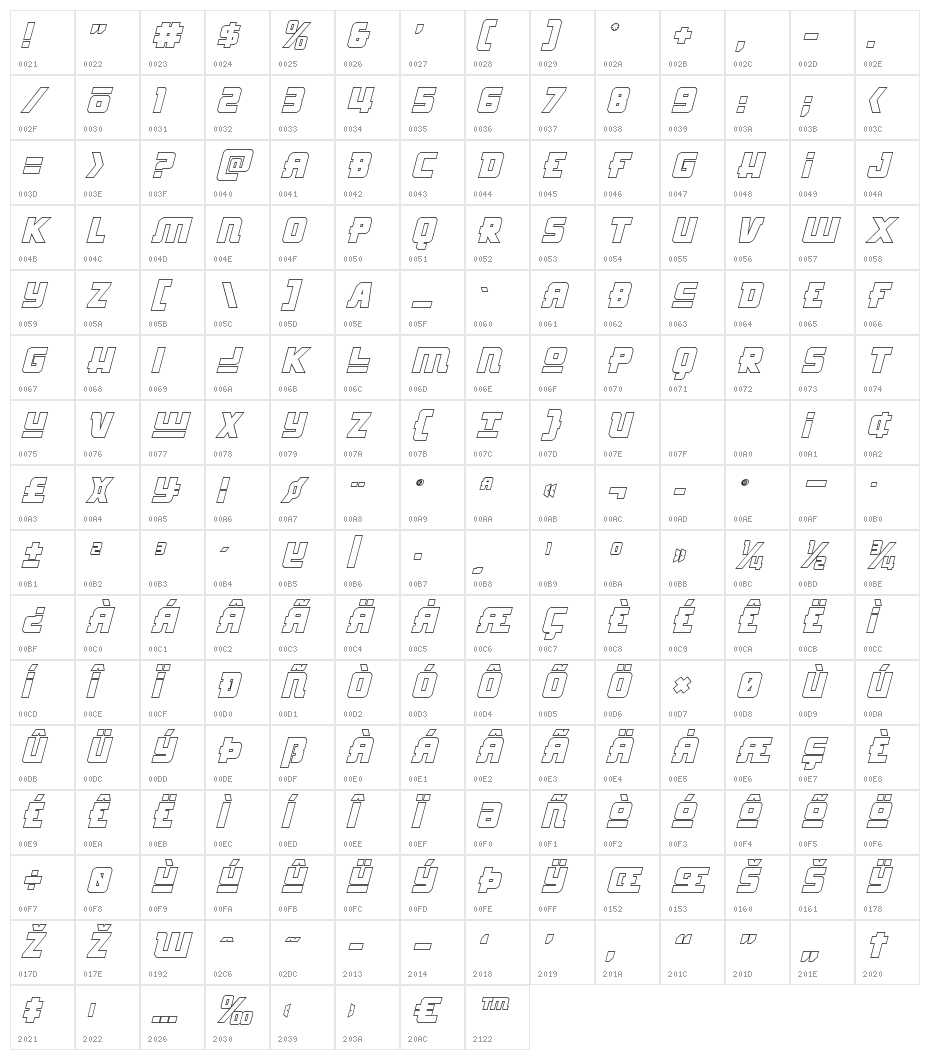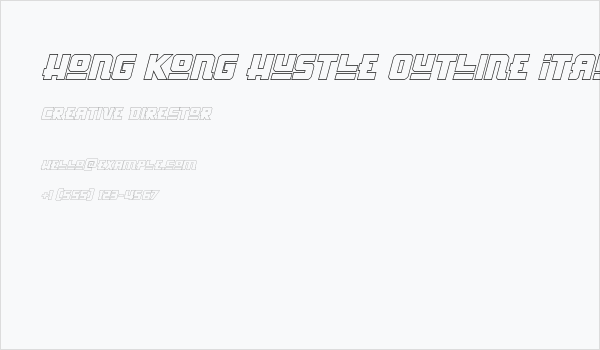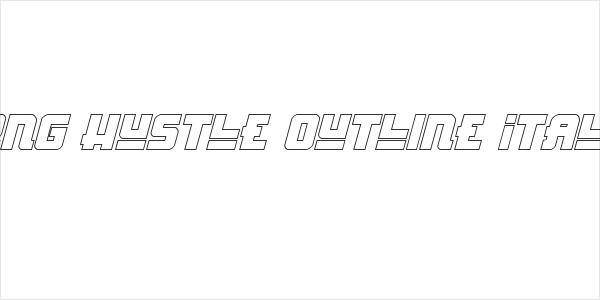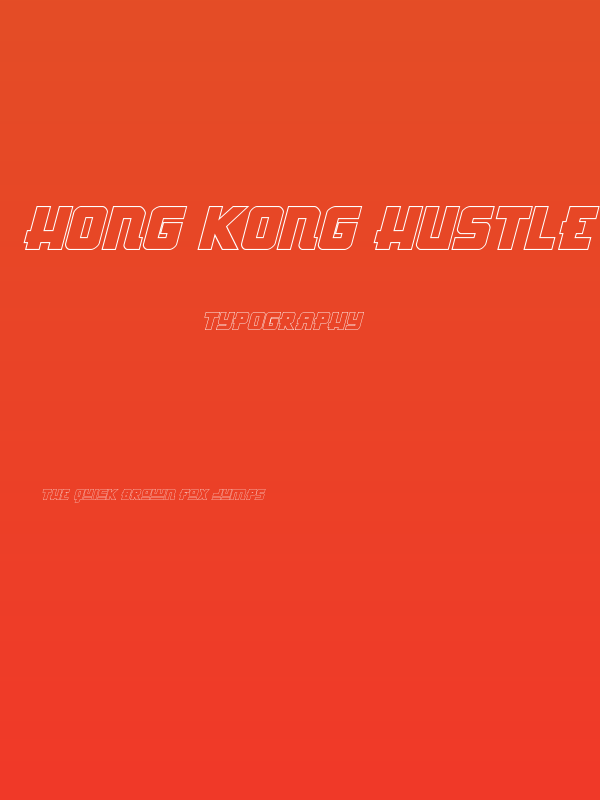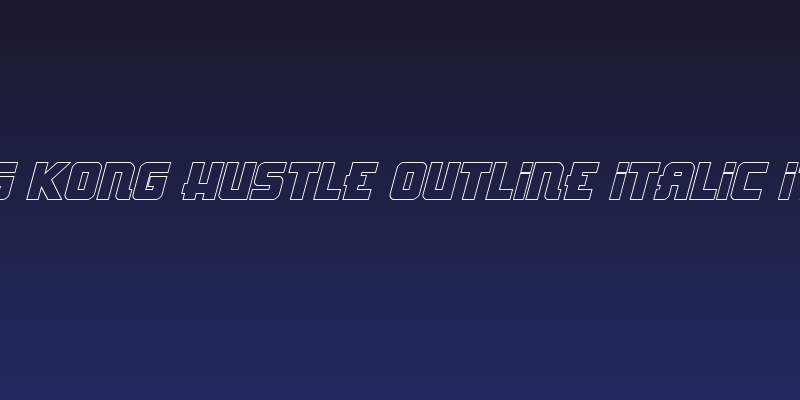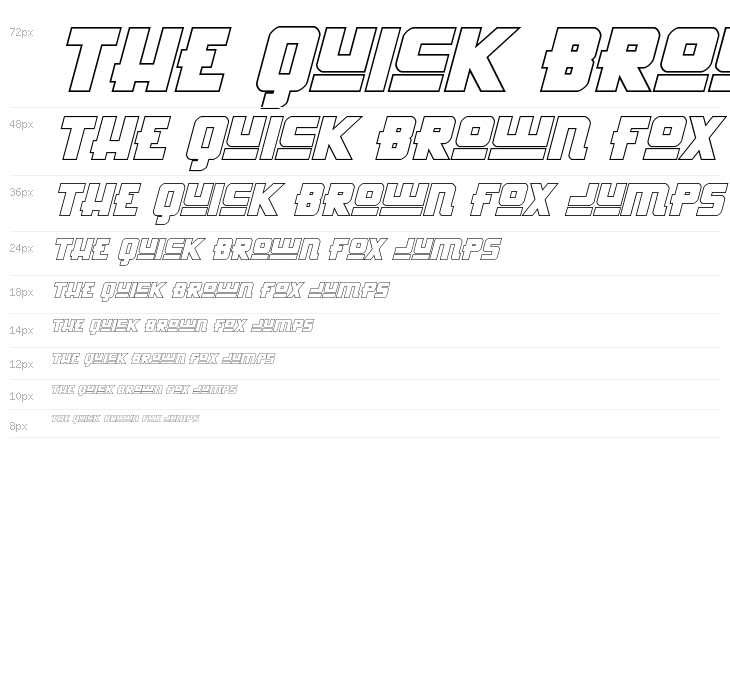
Hong Kong Hustle Outline Italic Italic Font
Hong Kong Hustle Outline Italic Italic Description
This font features a bold, geometric outline style with a distinct italic slant, giving it a dynamic and futuristic appearance. The characters are constructed with sharp angles and clean lines, creating a sense of movement and energy. The uppercase and lowercase letters maintain a consistent style, with the lowercase slightly smaller but equally impactful. The numerals and special characters follow the same design principles, ensuring uniformity across all glyphs. The outline nature of the font adds a layer of complexity, making it ideal for standout designs.
| Proposed Projects | Ideal for projects needing a modern, energetic feel such as tech branding, video game titles, or sci-fi themed posters. |